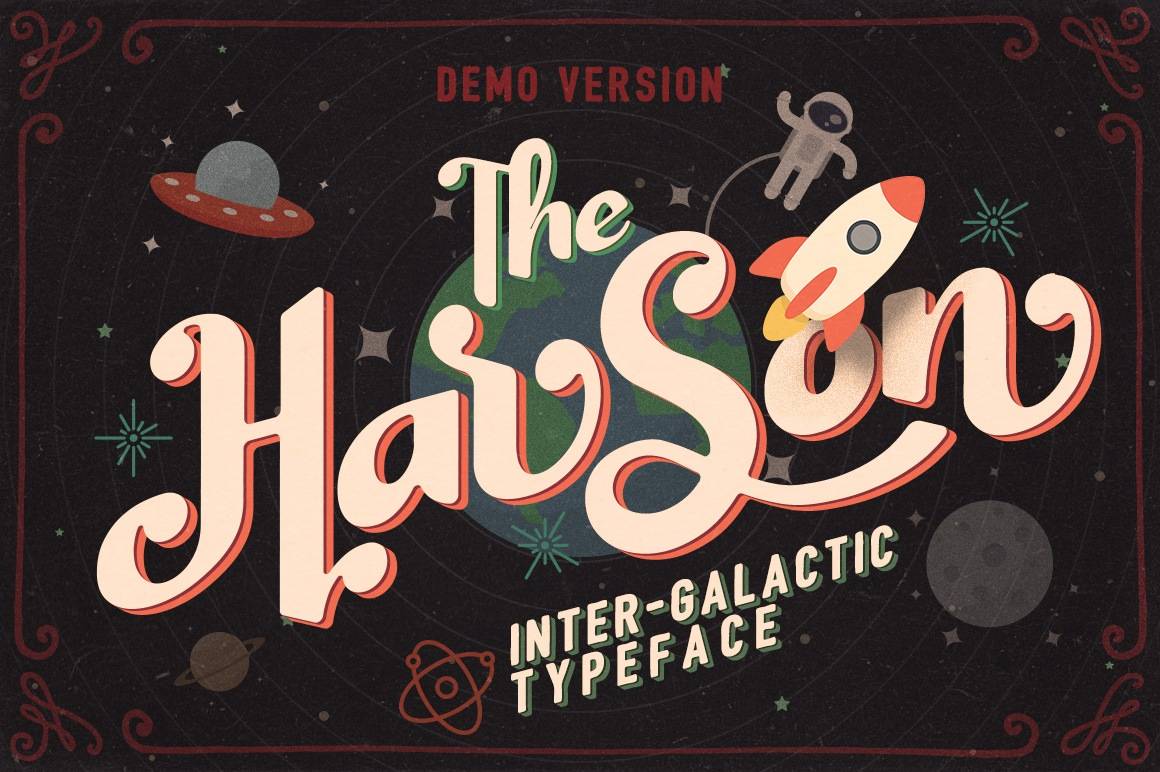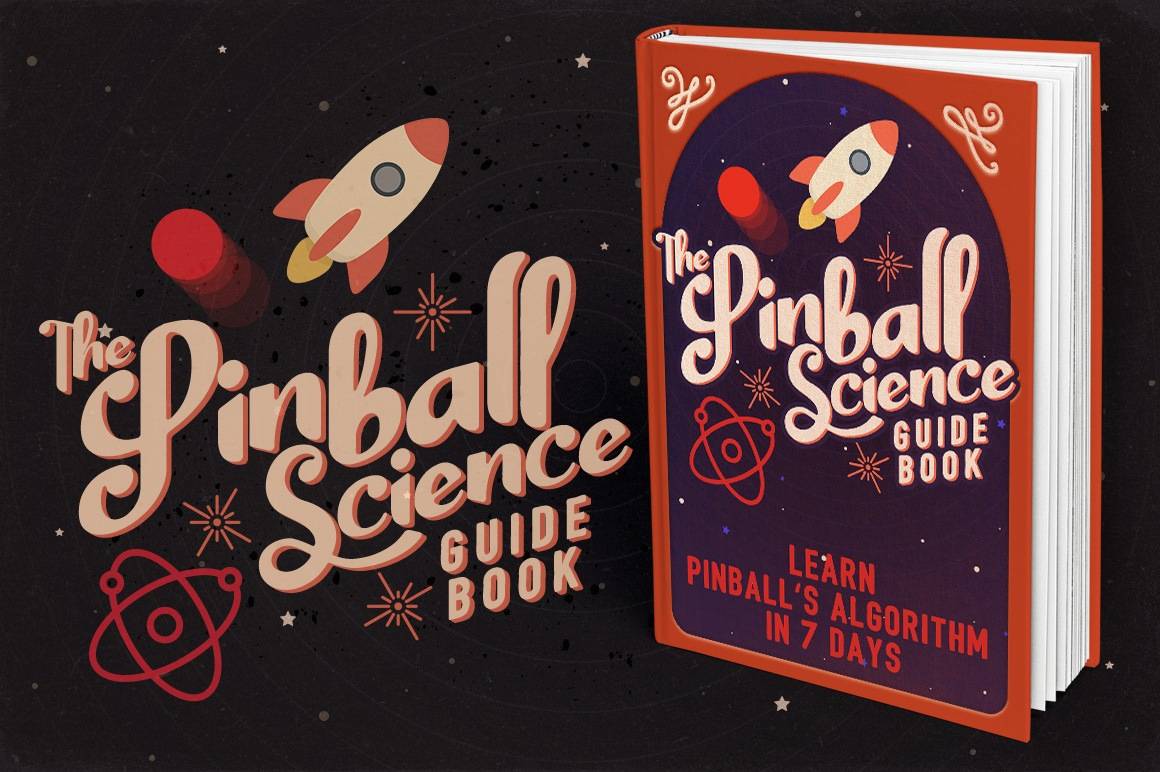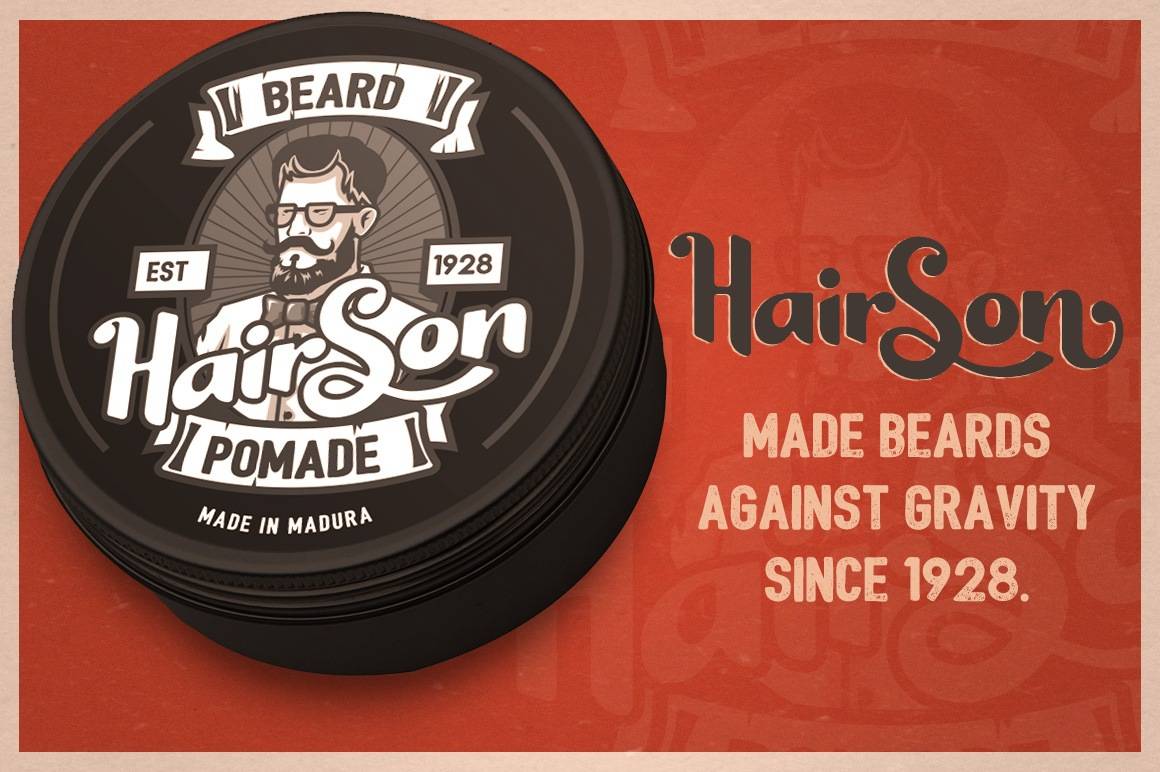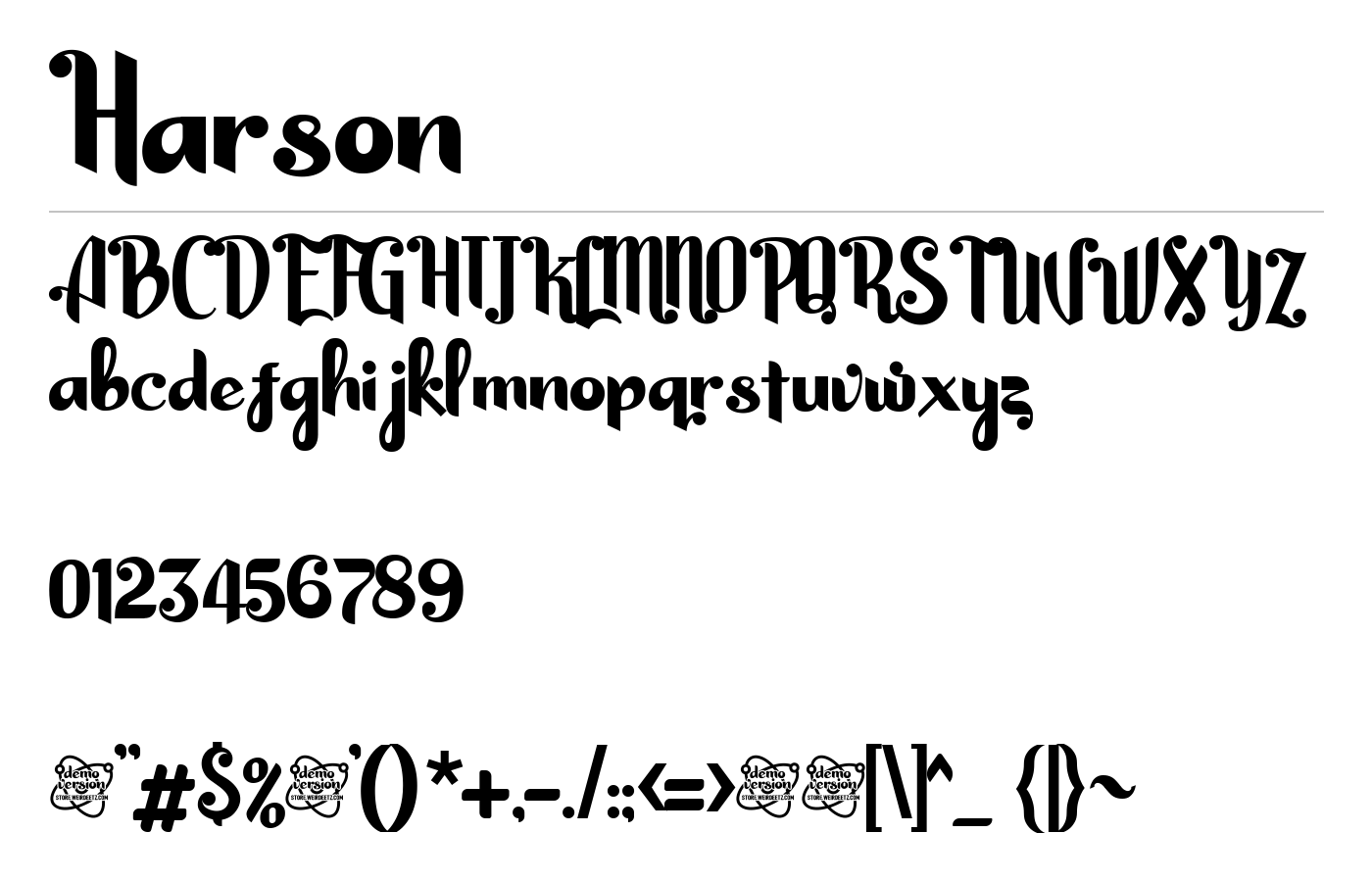
Harson is a bold, decorative serif font with a vintage flair, featuring strong contrast and unique, ornamental details like curled terminals and sharply angled serifs. Its distinctive letterforms blend elegance with a playful gothic spirit, making it ideal for eye-catching headlines, logos, and branding that want to evoke a timeless yet bold personality. This font works best in creative projects where style and impact are key, such as posters, packaging, and fashion design.
Harson Font
About Harson Font
| Font family | Harson Font |
| Designer | Aditya Nugraha Putra |